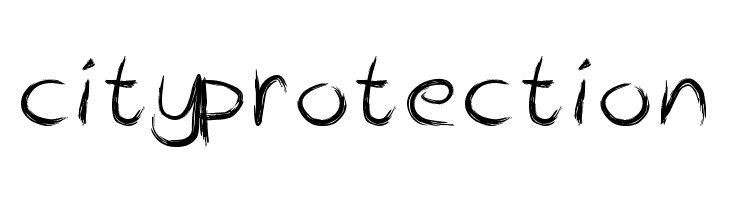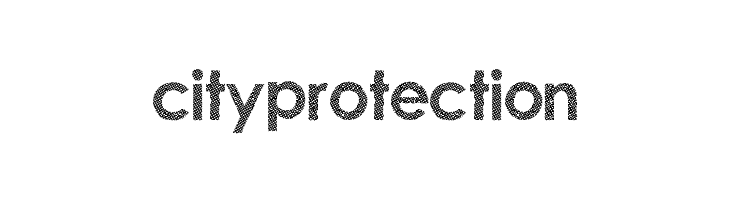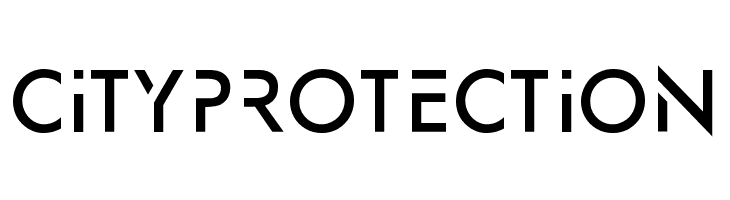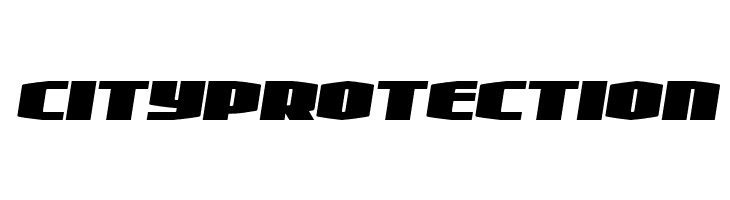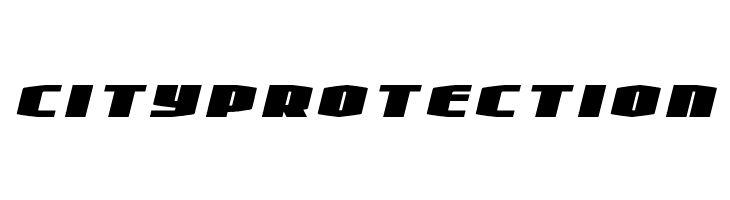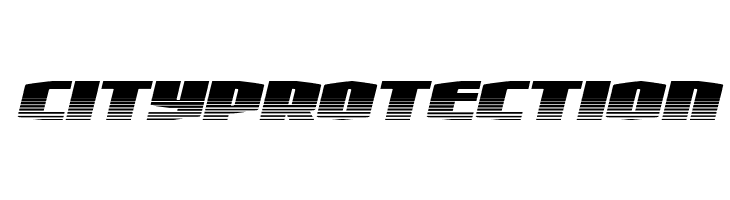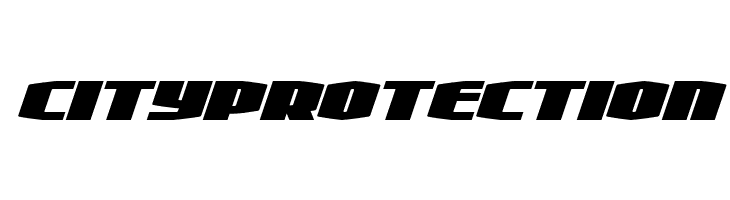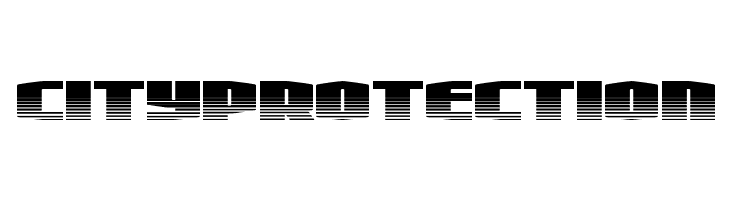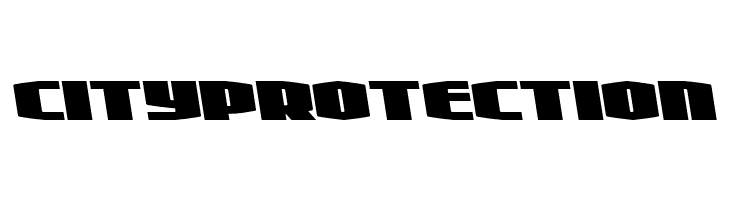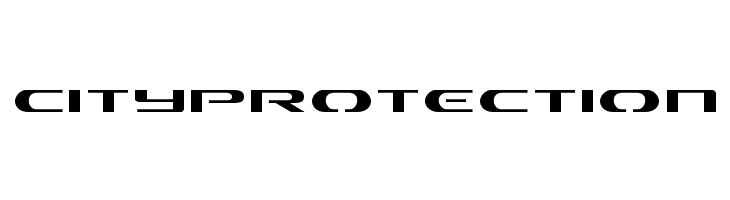
• Alpha Century Semi-Italic
A bold, futuristic font with a semi-italic slant and angular design.
• Alpha Century Semi-Leftalic
A bold, angular, and futuristic font with a leftward slant.
• Alpha Century Super-Italic
• Alpha Century Title
A bold, geometric font with a futuristic and modern style.
• Alpha Century Title Italic
A bold, italic, futuristic font with sharp angles and dynamic style.
• Alpha Century Twotone
A bold, futuristic font with a two-tone gradient effect.
• Alpha Century Twotone Italic
A bold, futuristic italic font with a two-tone line effect.
• Alpha Danthe PERSONAL USE Italic
A modern, elegant script font with flowing, cursive strokes.
A graceful and elegant handwritten font with delicate strokes.
• Alpha Men
A bold, futuristic font with geometric shapes and sharp angles.
• Alpha Monday
A bold, cursive font with a flowing, handwritten style.
• Alpha Mutation
A bold, decorative font with a fragmented, pixelated texture.
• Alpha Outline
A geometric, angular outline font with a futuristic and edgy style.
• Alpha Prota
A geometric, minimalist font with thin lines and angular shapes, perfect for modern designs.
• Alpha Sapphire
• Alpha street
• Alpha54
A bold, dynamic script font with a playful and energetic style.
• AlphaBee
A playful, handwritten font with bold, energetic strokes.
• Alphabet Fantasie Regular
A bold, decorative font with a vintage, three-dimensional style.
• Alphabet Headdy
A playful, human-figure integrated font with a bold, dotted texture.
• Alphabeta
A pixelated, retro-style font with a digital aesthetic.
• Alphabetically
A playful, casual handwritten font with flowing strokes.
• AlphabetismHand
A playful, handwritten font with an organic, casual style.